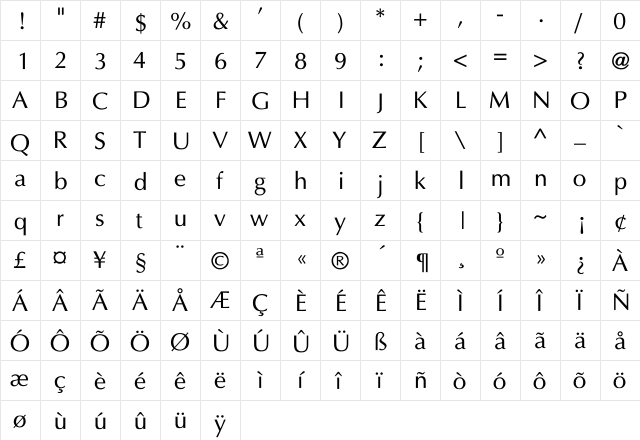
djPrimo Regular
Design Context for djPrimo Typeface
djPrimo takes a measured approach to typography — its balanced proportions and neutral character make it a reliable workhorse for both digital and print work.